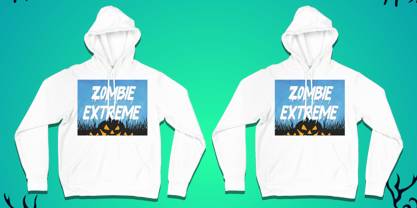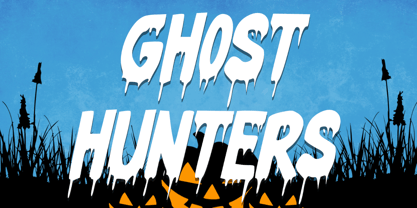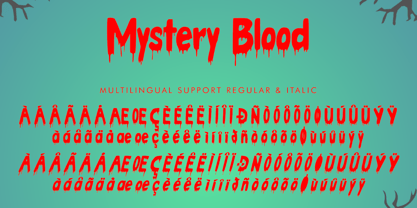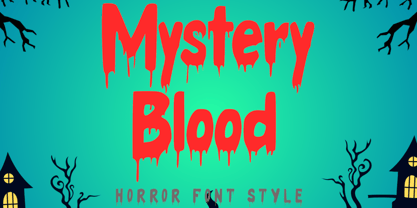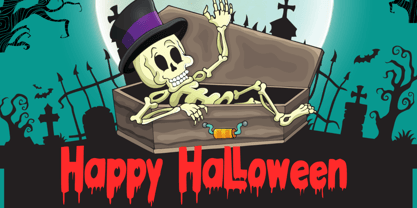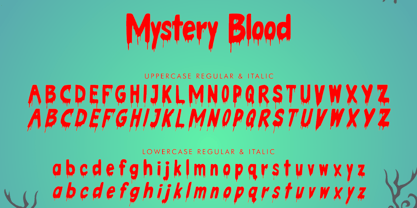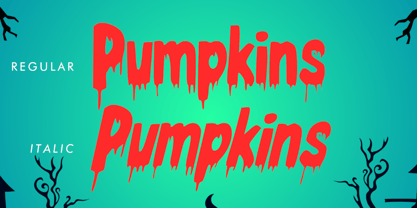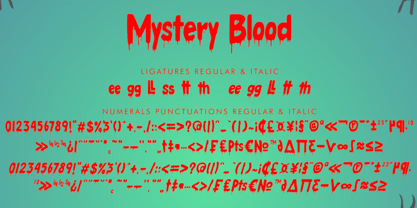
Mystery Blood Italic
by Yoga Letter
The Mystery Blood Italic Font Family was designed by Isroni Yoga Prasetya and published by Yoga Letter. Mystery Blood Italic contains 2 styles and family package options. More about this family
"Mystery Blood" is a spooky horror font with blood dripping from every letter. It features uppercase and lowercase letters, ligatures, numbers, punctuation, and multilingual support. Perfect for Halloween, horror movie titles, horror comics, stickers, posters, banners, branding, Christmas, fall, autumn, logos, winter, holidays, mockups, t-shirts, and more.
Designers: Isroni Yoga Prasetya
Foundry: Yoga Letter